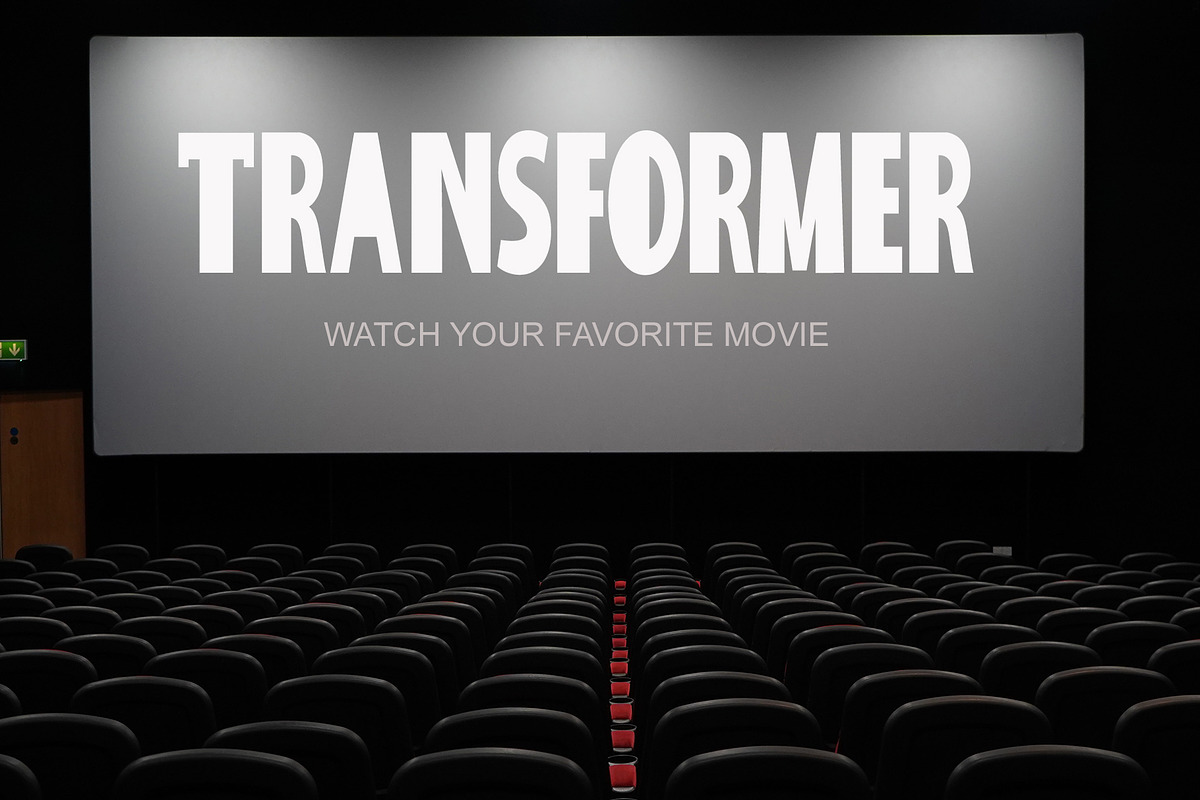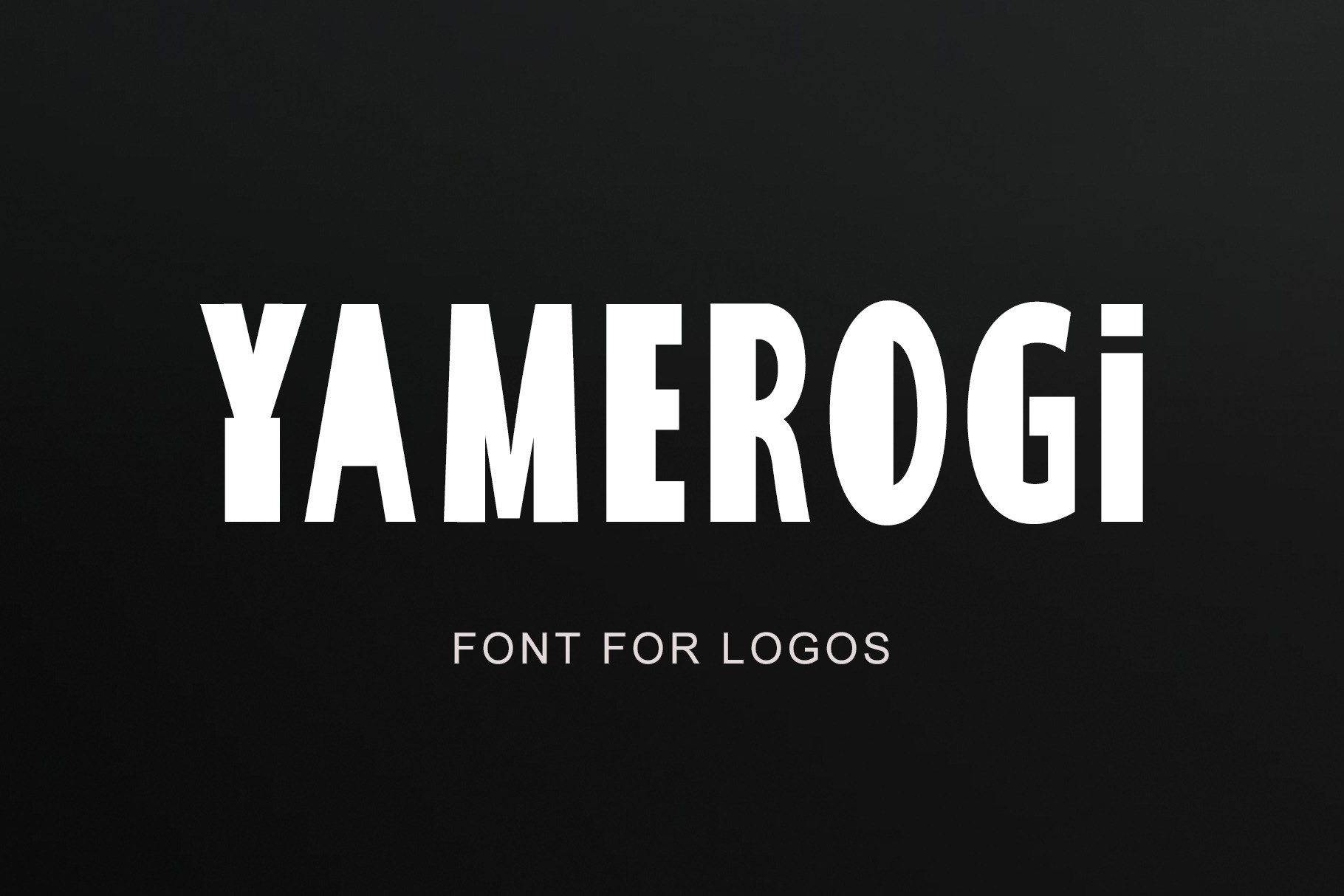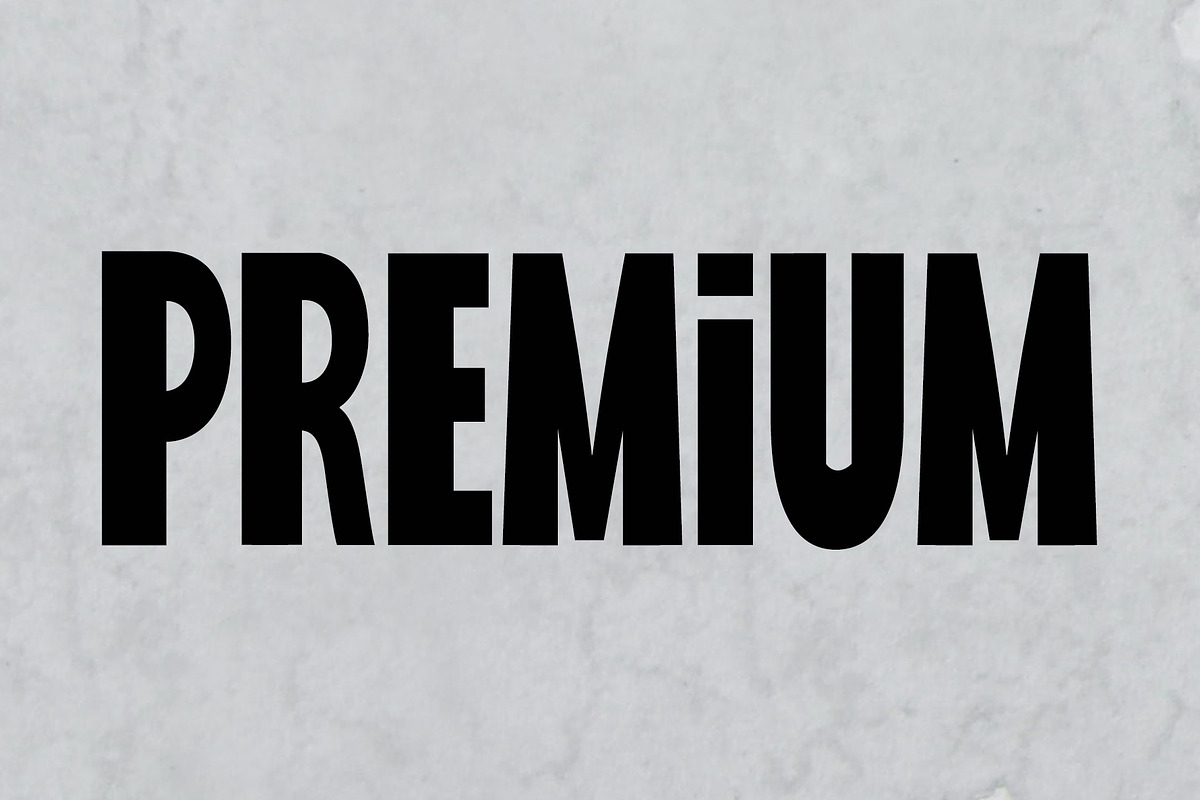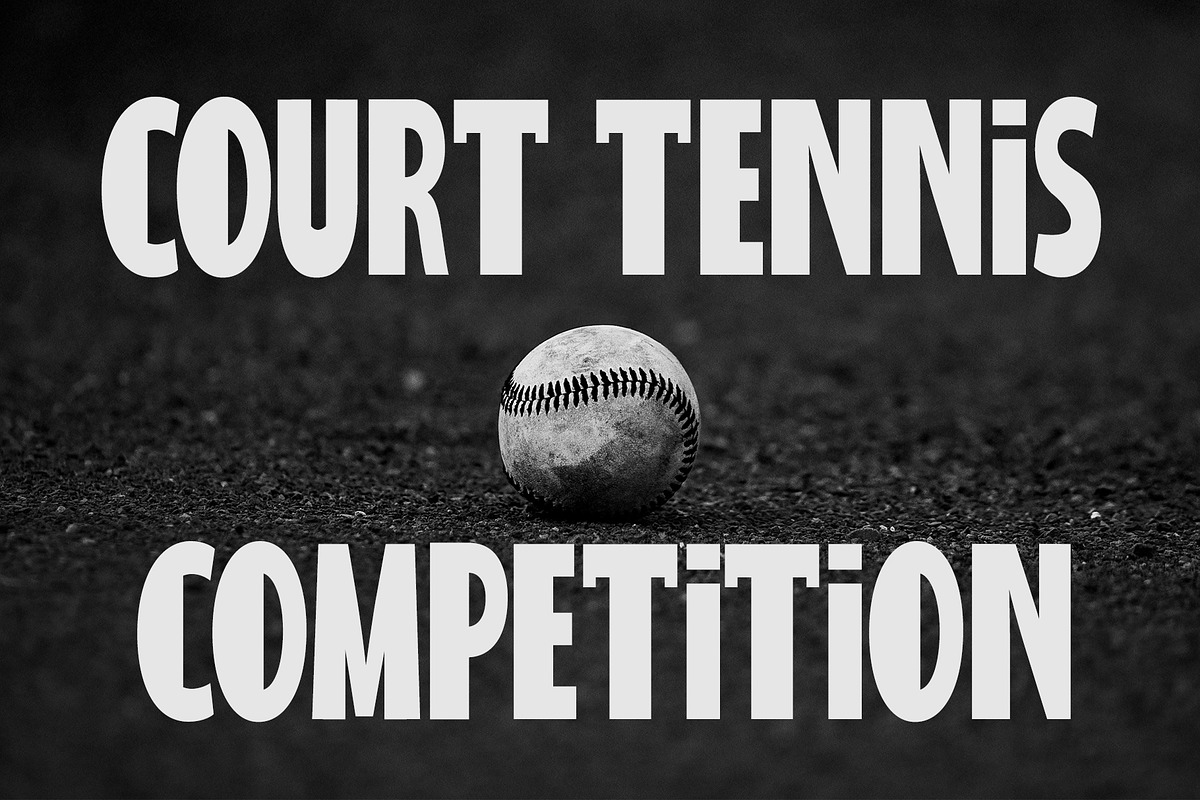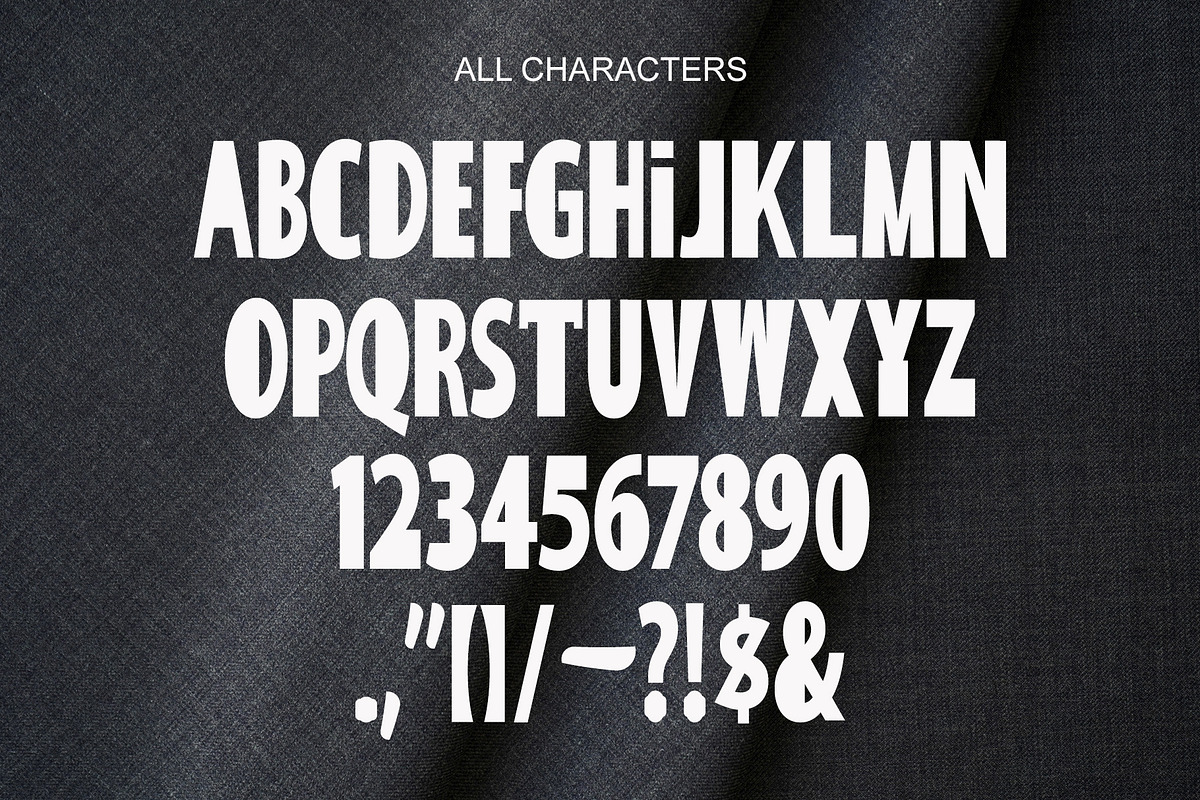
Yamerogi – Playful Display Font Logo
Yamerogi is a bold and playful display font made to stand out! With its thick strokes, quirky shapes, and cartoon-inspired style, Yamerogi is perfect for projects that need a fun and energetic personality.
This font is designed to work beautifully across a wide range of media—from digital platforms to printed materials. Whether you're creating eye-catching YouTube thumbnails, fun Instagram posts, bold Facebook ads, or dynamic TV show titles, Yamerogi brings a vibrant voice to your message.
With its comic-like charm and professional finish, Yamerogi is also a great choice for brand names, product packaging, logos, and entertainment content. Wherever you need to draw attention and express creativity, Yamerogi is the font that delivers.
Cartoon and comic titles
YouTube thumbnails and channel art
Instagram posts and reels
Facebook covers and ads
Twitter banners
Product packaging & branding
Entertainment and TV titles
Business or company name designs
Game UIs and children’s content
Posters, events, and digital marketing
Let your content speak louder with Yamerogi – bold, expressive, and made to capture attention.